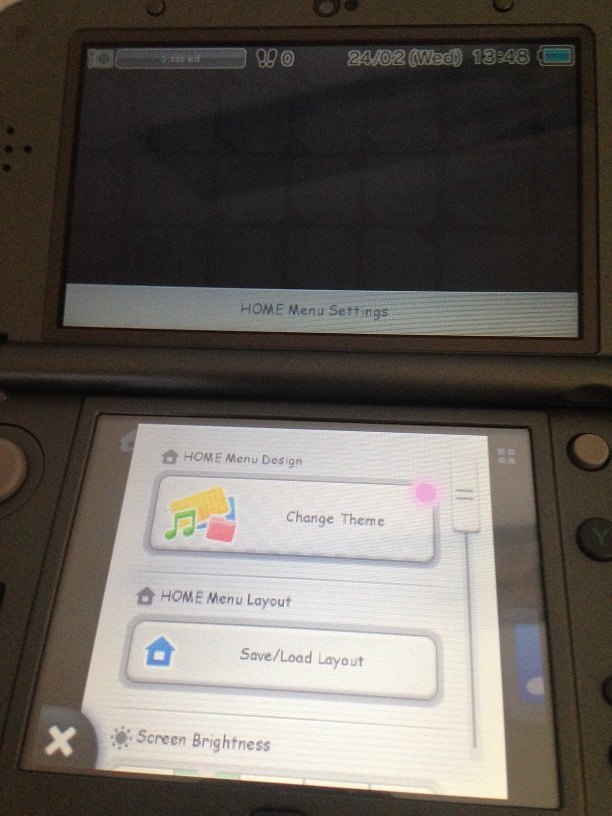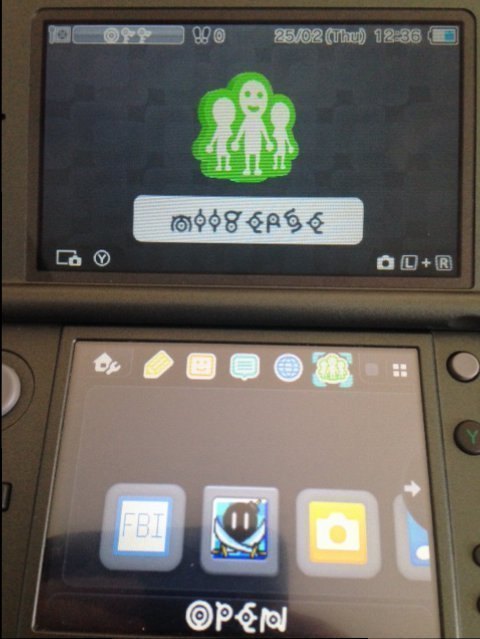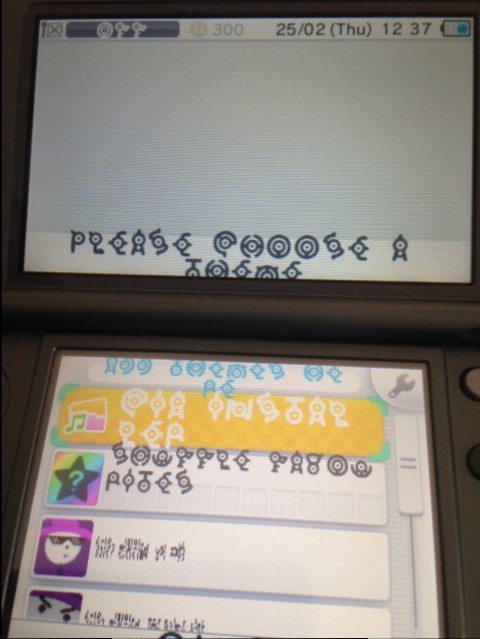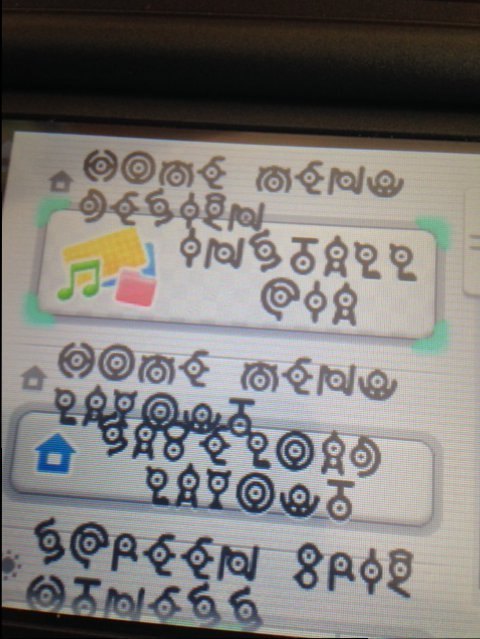
Make me comic sans for new 3ds
Totally converting the Undertale font to a BCFNT when I get home. Sounds like fun to me.Thread: https://www.reddit.com/r/3dshacks/comments/4g81xh/has_3ds_hacking_gone_too_far/
It's a very manual process, and apparently not easily undone.
Wrong TID, according to 3DBrew.What gives? I extract the alleged system fonts CIA (0004009B00010402.cia?) and I only find some _LZ.bin files. Is this the wrong CIA, perhaps?
Then in that case, it's not in my 10.3 update pack. -_-Wrong TID, according to 3DBrew.
Thanks a ton, I've been trying to find where on earth I can find the default font. I guess I'll try installing it now..Okay, so I managed to get custom fonts working now! I never knew that 0004009B00014002 could be installed to N3DS, regardless of there not even being a 0004009B00014002 installed in the first place. Silly me.
Anyway, at some users' requests, I tested out Comic Sans on the 3DS and here's the result: (the font's pretty tiny, imo...)
I know this isn't new... but it certainly shows us that we could do a lot more on the 3DS than meets the eye...
Do you mean this type of font?@Voxel Studios, could you try the GameCube font and post screens please?
Look at this pastebin post. It might help you accomplish that: http://pastebin.com/wu0E81hFWhen i figure out how to do it i'm looking forward to getting this one...
Yeah, i found that pastebin. Just a bit busy recently so i'm waiting until I have a free afternoon to understand what i'm doing. Don't suppose you could give it a go like above please?Look at this pastebin post. It might help you accomplish that: http://pastebin.com/wu0E81hF![]()
Sure I can!Yeah, i found that pastebin. Just a bit busy recently so i'm waiting until I have a free afternoon to understand what i'm doing. Don't suppose you could give it a go like above please?(I know you don't want to share files - Copyright SDK stuff)
@jonnytron, it's not that bad if I say so myself... for some reason, the font can be either too big, overlap too much in places, or be squashed together... but overall, it's okay.